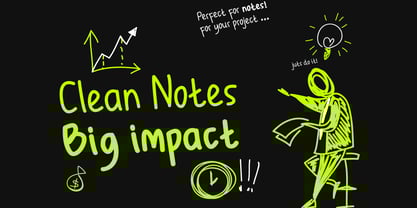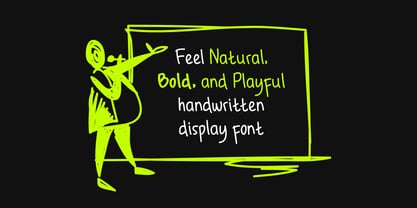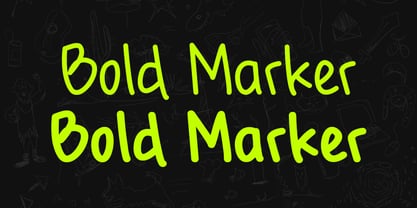
Bold Marker
by Lettertype Studio
The Bold Marker Font Family was designed by Diki Pradipta Tri Atmojo and published by Lettertype Studio. Bold Marker contains 2 styles and family package options.
Bold Marker is a Natural, Bold, and Playful Display Font. This font works perfectly for anyone who needs a font for headlines, logotype, apparel, invitations, branding, packaging, advertising, and more. This typeface includes uppercase, lowercase, punctuation, symbols, and numerals.